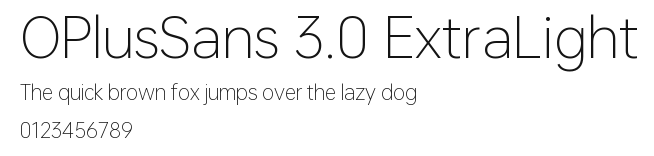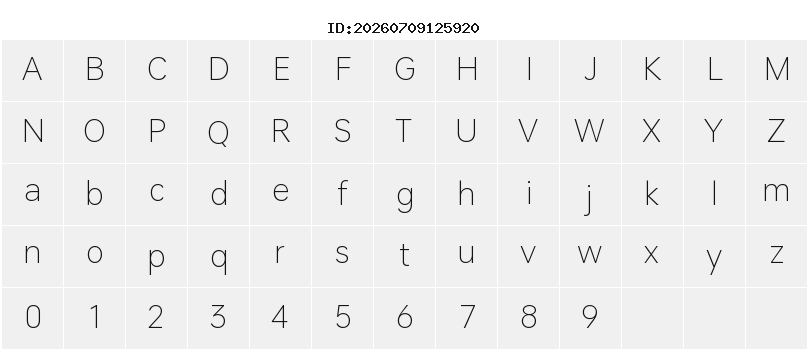
OPlusSans 3.0 ExtraLight Preview
• Font Name: OPlusSans 3.0 ExtraLight
• Full Font Name: OPlusSans 3.0 ExtraLight
• Version: Version 3.000
• PostScript Name: OPlusSans3.0-ExtraLight
About OPlusSans 3.0 ExtraLight.ttf
OPlusSans 3.0 ExtraLight.ttf is a modern, elegant sans-serif font designed for ultimate readability and visual harmony. Perfect for branding, headlines, web design, and print materials.